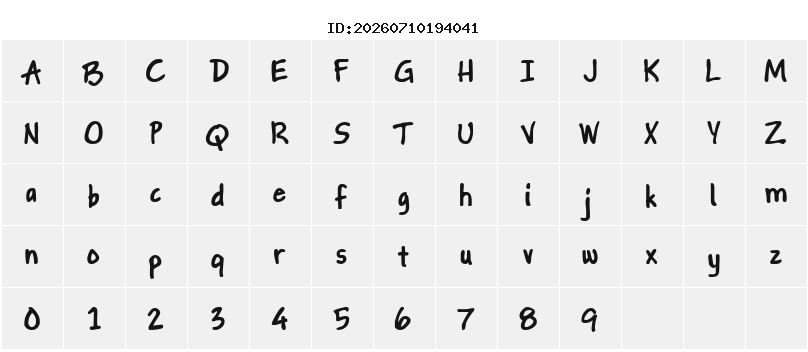
• Font Name: Gapstown Small AH
• Designer: Andreas Höfeld
• Manufacturer: Fontgrube AH
• Description: This is the version for small print of Gapston AH, a hand printing font for those who do not need or want the artificial evenness of Comic Sans, Tekton or the like. Gapstown contains a full ISO 8859-1 character set, you can write most western European languages with it. 193 manually edited kerning pairs add to the quality of this font.
Gapstown Small AH.ttf is a modern, elegant sans-serif font designed for ultimate readability and visual harmony. Perfect for branding, headlines, web design, and print materials.